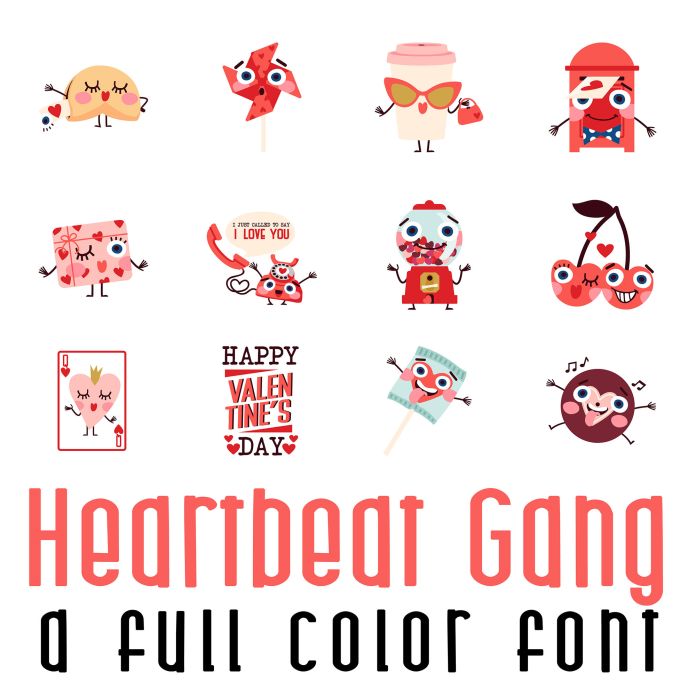
This fun full color font features 26 whimsical Valentine and love imagery. Perfect for classrooms, teachers, gifts, decor, scrap book pages, planner stickers and more!